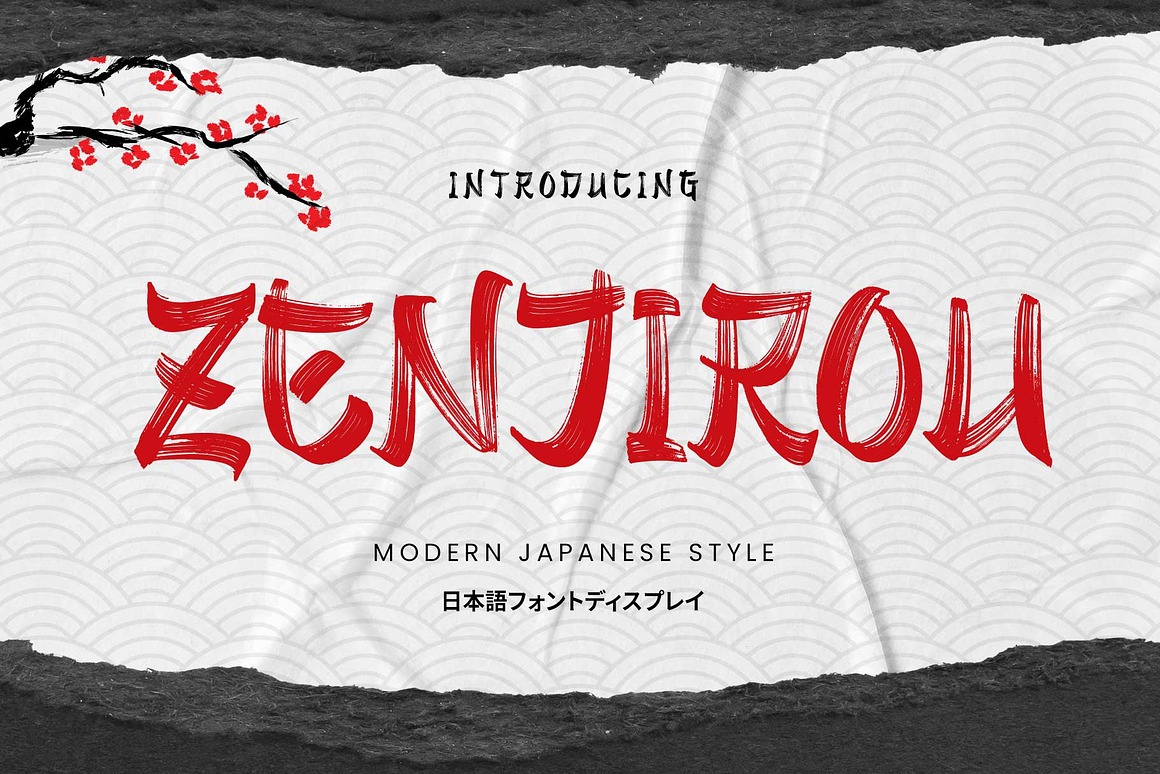
Zenjirou Font
About Zenjirou
Introducing Zenjirou—a font inspired by Japanese lettering. Designed with a natural brush style, it captures the essence of traditional Japanese calligraphy. This all-caps font features unique shapes and special characters to give your designs an authentic Japanese touch!